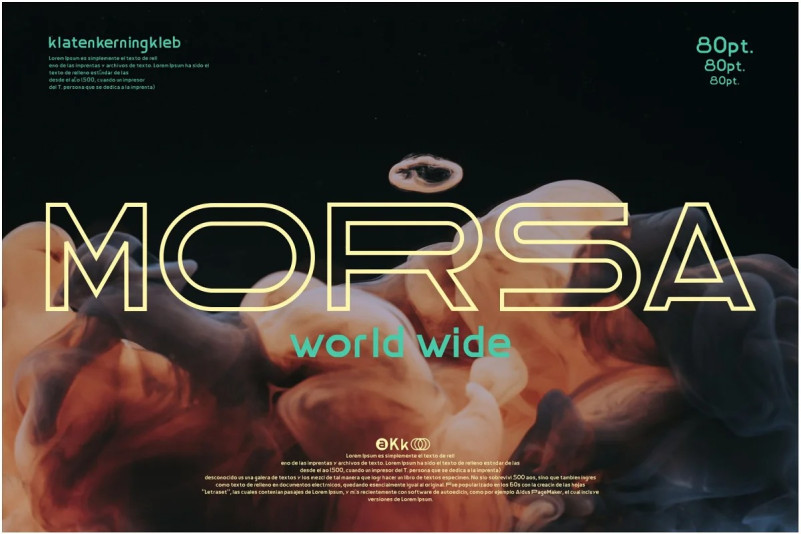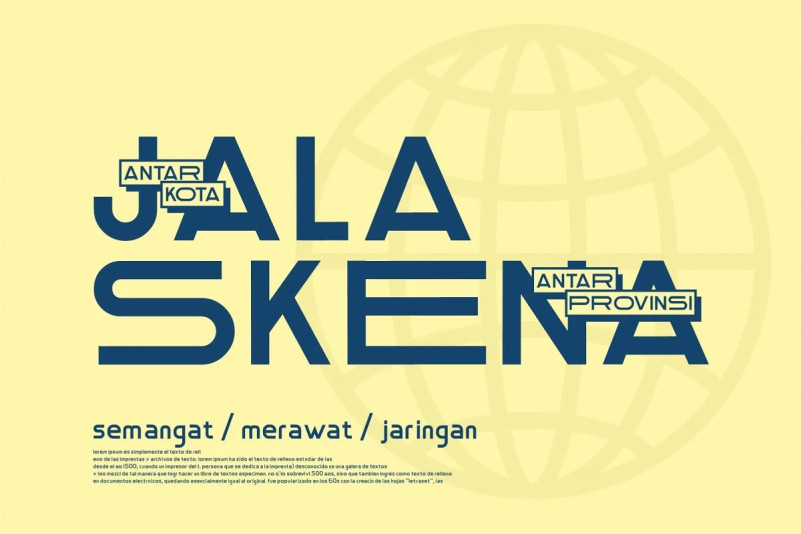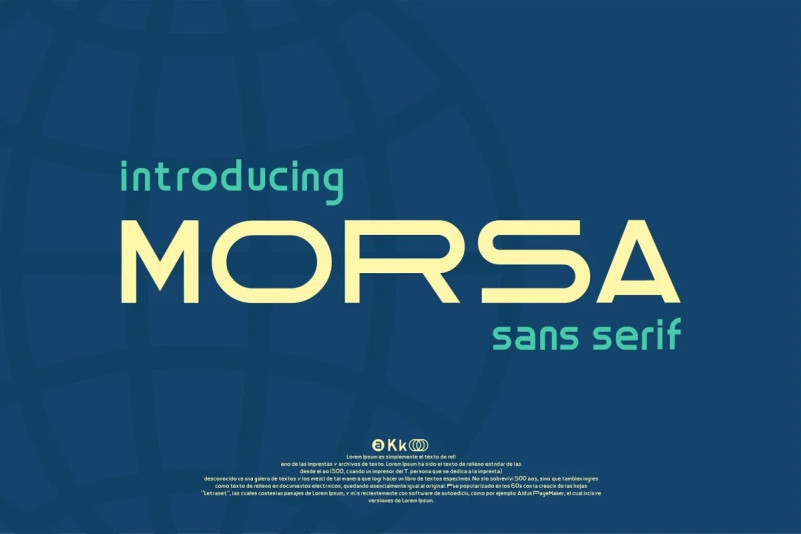
Morsa Font
Morsa Sans Serif Font is a futuristic and modern sans serif font. Whether you’re using it for crafting, digital designing, presentations or greeting cards making, it’s perfect!